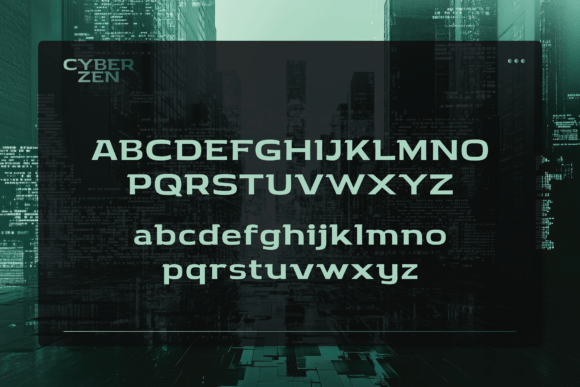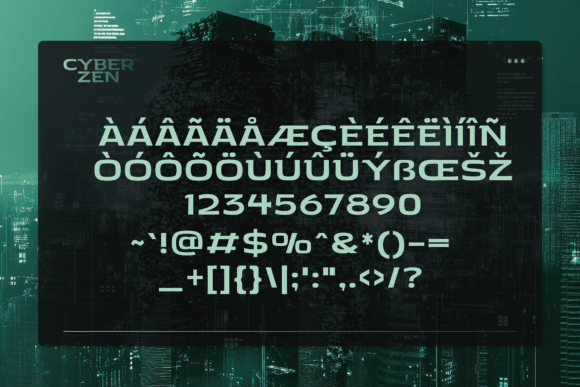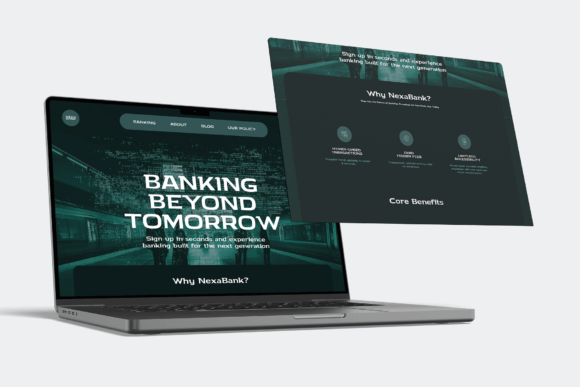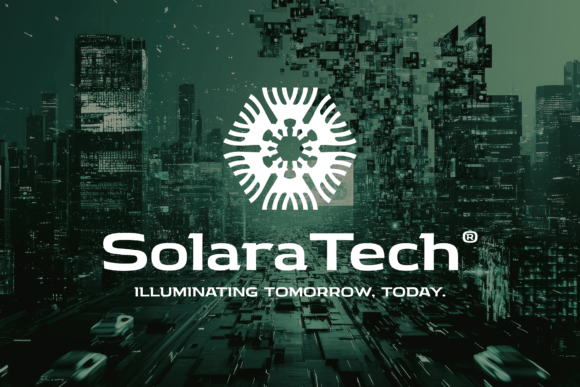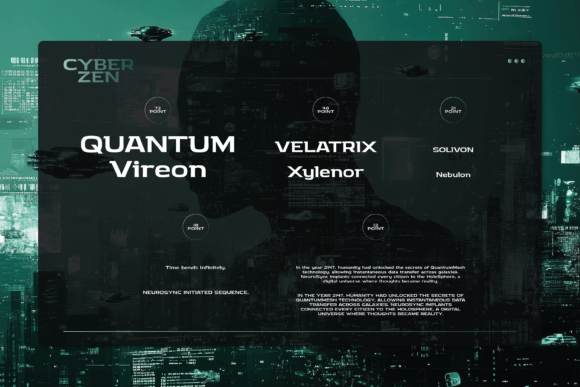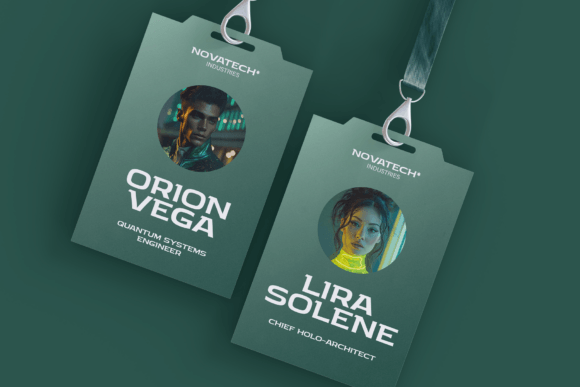
Designing for the Future with Cyber Zen Font
As a designer, there’s nothing quite like the thrill of bringing a creative project to life. It’s the moment when all the pieces come together, and you see your vision take shape. For me, that moment often starts with the perfect font. And that’s where Cyber Zen Font comes in – a game-changing typeface that’s been elevating designs to new heights.
Imagine a font that’s as sleek as it is sophisticated, with clean lines and balanced proportions that exude modernity and minimalism. Whether you’re working on a cutting-edge space project, a tech startup, or a modern minimalist branding campaign, Cyber Zen Font is the ultimate design resource to help you achieve your creative goals.
Key Features of Cyber Zen Font
- Unique Blend of Digital and Eastern Elements: Cyber Zen Font seamlessly combines modern digital aesthetics with Eastern-inspired design elements, creating a distinctive and captivating visual experience.
- High-Quality Design Resource: This font is a valuable asset for any creative project, offering crisp and clear characters that are perfect for a variety of applications, from digital art to graphic design.
Honest Review: Cyber Zen Font
- ✨ Beautifully crafted glyphs that add a touch of futuristic elegance to any creative project
- ✨ High-quality design that looks great on both digital and print materials
- ⚠️ Limited language support, which may be a concern for designers working on multilingual projects
- ⚠️ Some users may find the font a bit too futuristic, which may not be suitable for all design styles
Overall, I’m really impressed with the Cyber Zen Font. Its unique design and high-quality craftsmanship make it a valuable addition to any designer’s toolkit. With a little creativity, it can elevate even the most mundane design projects into something truly special.
The Cyber Zen Font is ideal for use in digital art, graphic design, and creative projects. It’s also great for use in logos, branding, and typography-based designs.